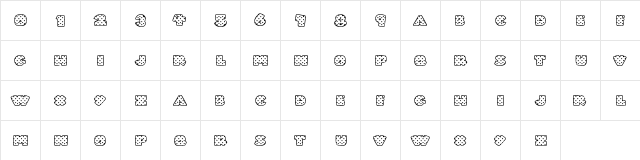
Fatty Heart Filled Regular
Design Context for Fatty Heart Filled
Fatty Heart Filled is a composed and adaptable typeface that performs quietly and consistently across a wide range of design contexts.
Pro Tip: Use Fatty Heart Filled in both headline and body roles to test its range before committing to a single application.